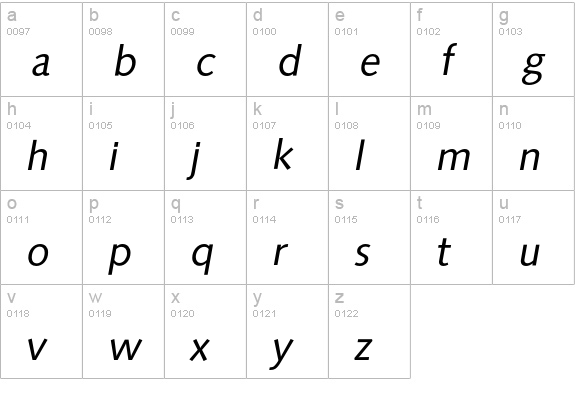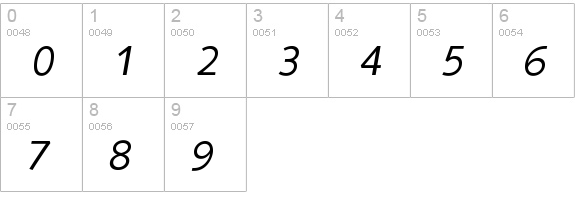
Saxony-RegularIta Font Details
Saxony-RegularIta is a beautifully crafted font that effortlessly combines elegance and sophistication. Its sleek and stylish design makes it the perfect choice for a wide range of projects, from branding and advertising to editorial and web design. This font features a unique italic style that adds a touch of flair and personality to any text. Its smooth curves and delicate strokes create a sense of fluidity and grace, making it pleasing to the eye and easy to read. But what truly sets Saxony-RegularIta apart is the fact that it is free. That's right, this incredible font is freely available to download at FontsMarket.com. Now, you can enjoy the remarkable beauty and versatility of Saxony-RegularIta without having to spend a penny. Whether you're a professional designer looking for a new addition to your font library or a beginner searching for the perfect font for your personal project, Saxony-RegularIta is the ideal choice. Its timeless appeal and versatile nature make it suitable for a wide range of applications, ensuring that it will never go out of style. So don't miss out on this amazing opportunity to enhance your designs with Saxony-RegularIta. Download it for free today at FontsMarket.com and unlock a world of creativity and endless possibilities.